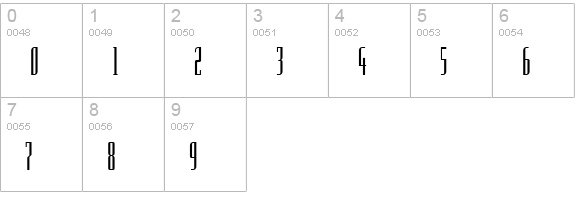
SenatorTall Regular Font Details
SenatorTall Regular is the standard, neutral variant in the SenatorTall typeface family \xE2\x80\x94 well suited to general body text, paragraphs, and standard typographic work.
SenatorTall Regular is a stunning font that embodies elegance and sophistication. With its tall and slender letterforms, this font exudes a sense of grace and refinement, making it perfect for a wide range of design projects. Whether you're creating eye-catching headlines or adding a touch of class to your branding materials, SenatorTall Regular is sure to impress. What sets SenatorTall Regular apart is not just its visual appeal, but also its accessibility. This font is freely available to download at FontsMarket.com, allowing designers and enthusiasts alike to incorporate its beauty into their work without any restrictions. By making SenatorTall Regular free, the creators have demonstrated their commitment to supporting creativity and innovation in the design community. With its crisp lines and balanced proportions, SenatorTall Regular delivers a sense of harmony and sophistication to any project. Its versatility makes it suitable for a variety of applications, from print designs such as posters, brochures, and invitations, to digital projects like websites, social media graphics, and presentations. No matter the medium, SenatorTall Regular is sure to leave a lasting impression. The attention to detail in SenatorTall Regular is evident in every curve and stroke. The harmonious spacing and consistent letterforms ensure legibility, even at small sizes. This font is designed to be visually pleasing and easy to read, ensuring that your message is conveyed effectively to your audience. In conclusion, SenatorTall Regular is a font that effortlessly combines elegance with accessibility. Its freely available download at FontsMarket.com makes it a valuable resource for designers and creatives who seek to elevate their projects with a touch of sophistication. Whether you're designing for print or digital, SenatorTall Regular is a versatile and visually stunning choice that is sure to enhance any design.